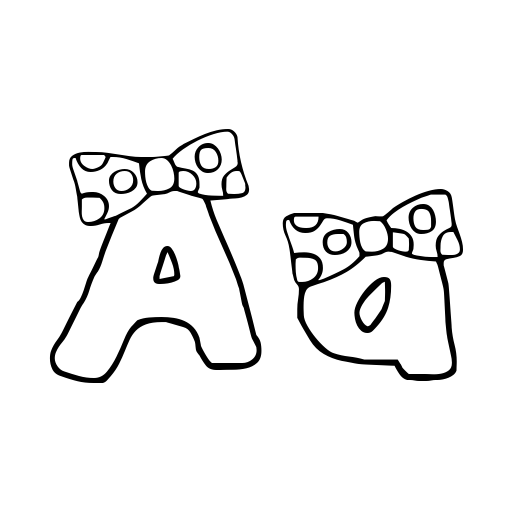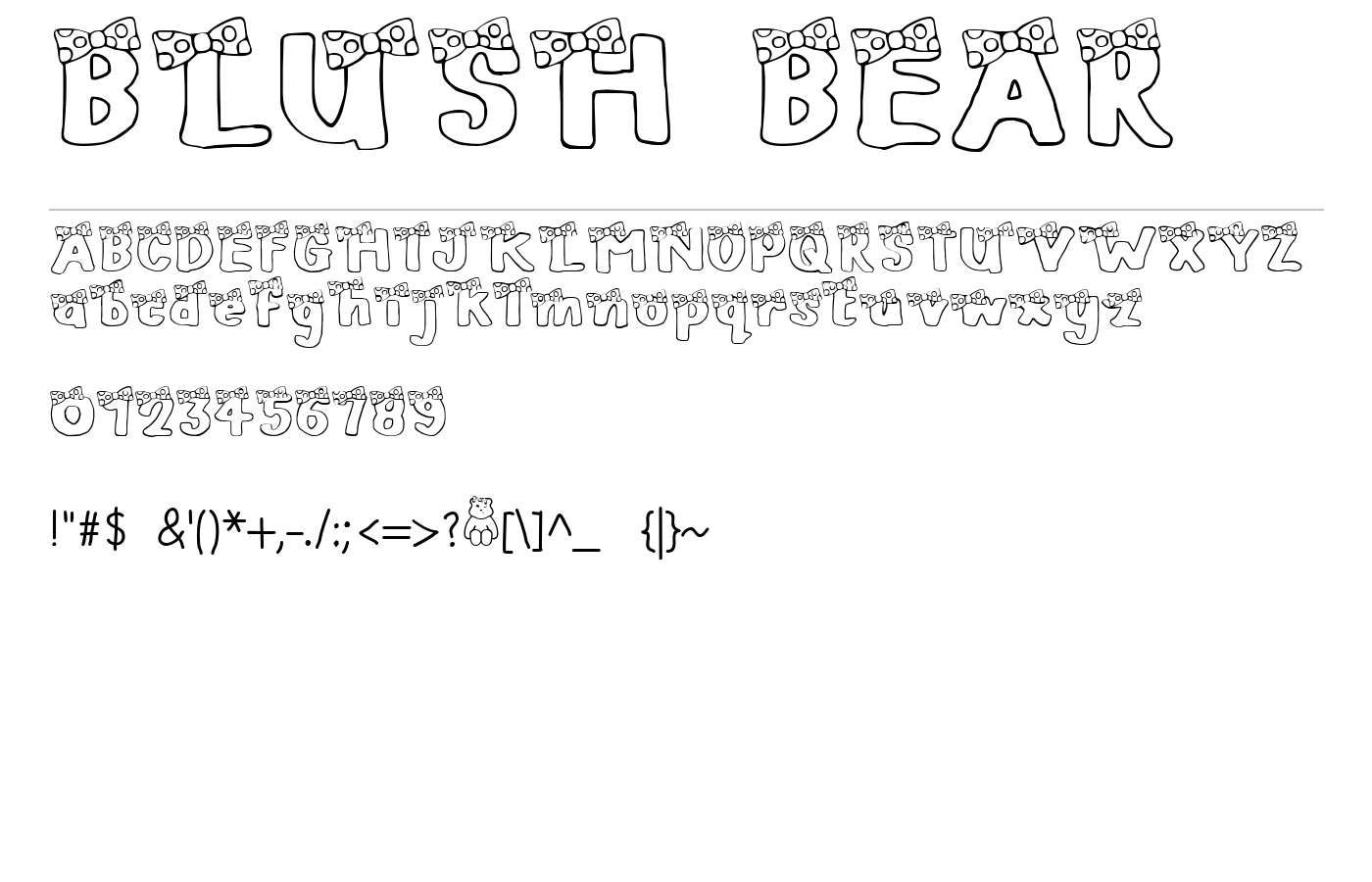
Blush Bear is a playful, hand-drawn sans serif font with rounded, chunky letterforms topped with charming bow illustrations, creating a whimsical and childlike feel. Its irregular shapes and friendly style make it perfect for kids' products, playful branding, and casual, fun design projects that want to convey warmth and creativity.
BLUSH BEAR Font
| Designer | SpideRaY |